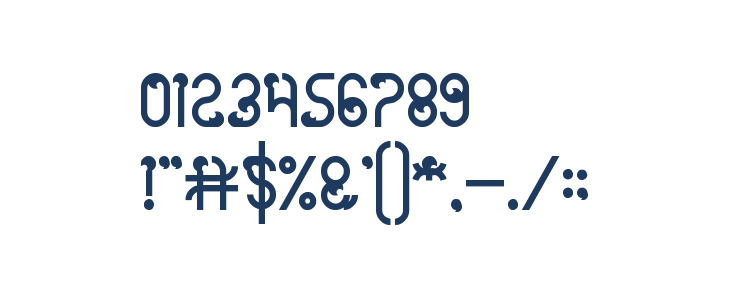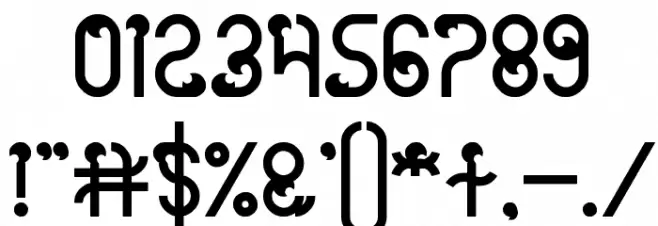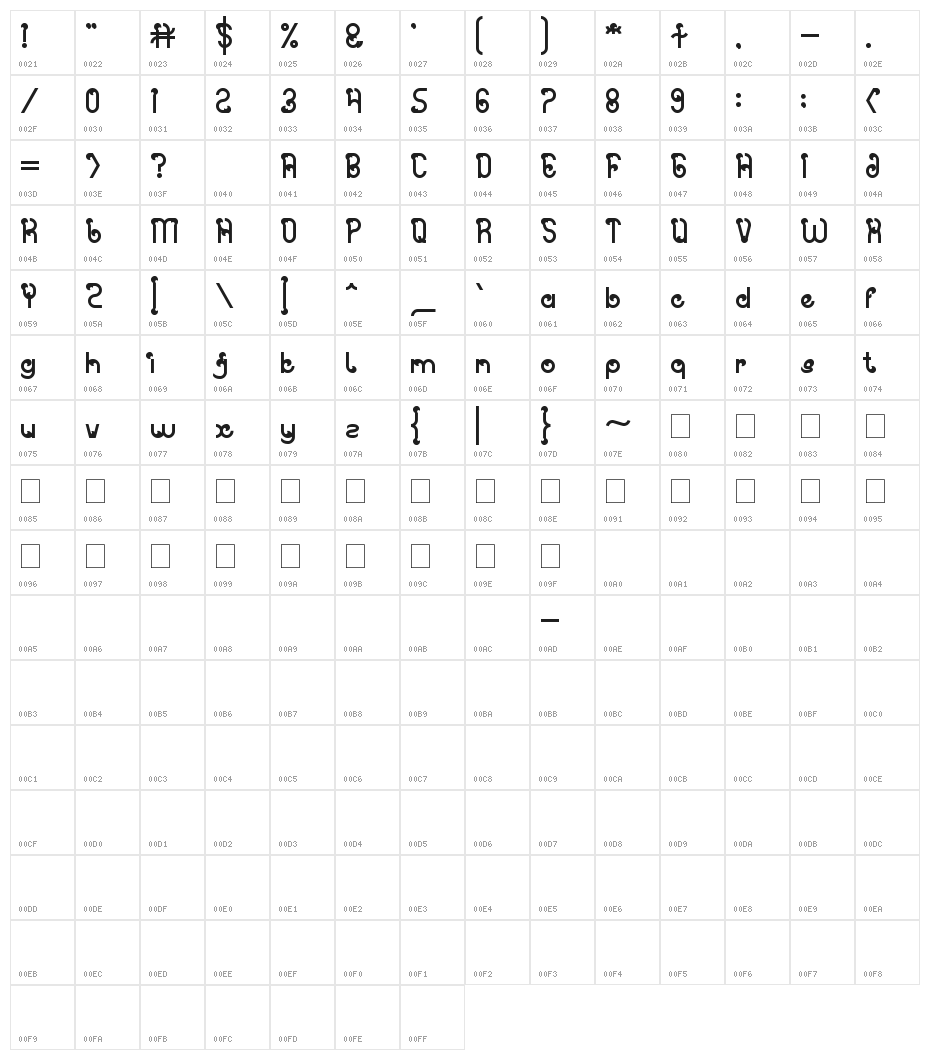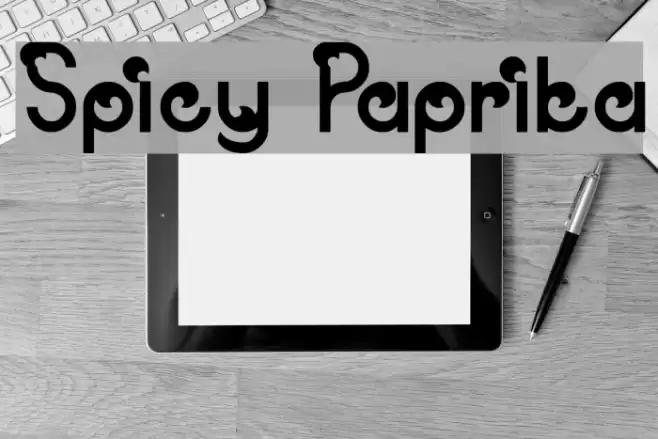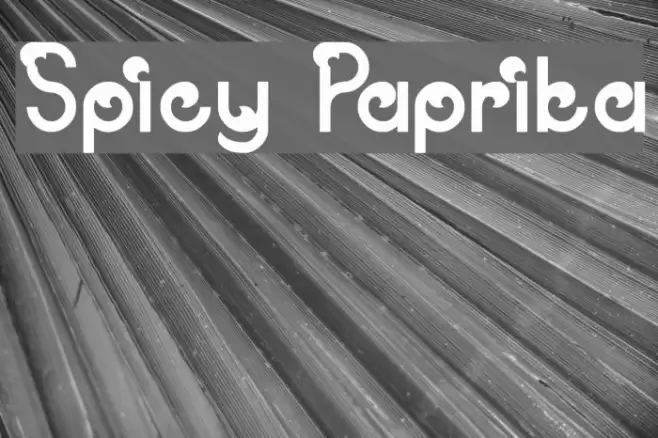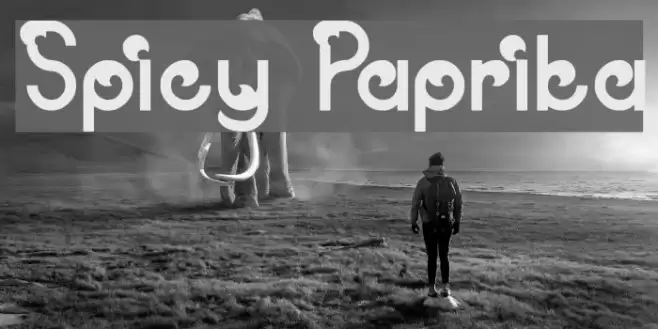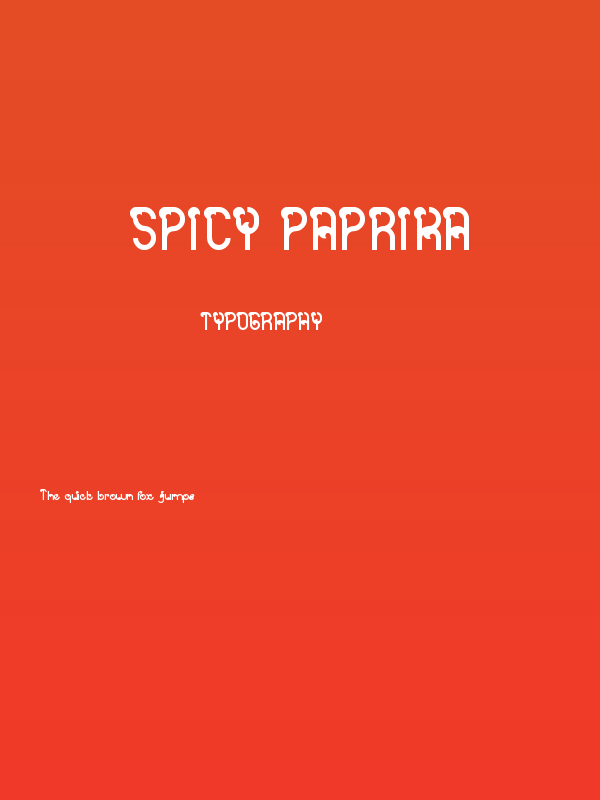
Spicy Paprika Font
Spicy Paprika Description
This font features a playful and bold design with a unique, rounded style. The characters are crafted with a consistent stroke width, giving it a cohesive and harmonious appearance. The uppercase letters have a distinctive, almost whimsical flair, with some characters incorporating unexpected curves and loops. The lowercase letters maintain this playful aesthetic, providing a sense of continuity and balance. Numbers and special characters are designed to match the overall style, ensuring a uniform look across all text. This font's boldness and character make it suitable for eye-catching designs.
| Overall Style | Playful, Modern, Decorative |
| Proposed Projects | Ideal for children's books, playful branding, posters, and creative projects that require a bold and fun typeface. |